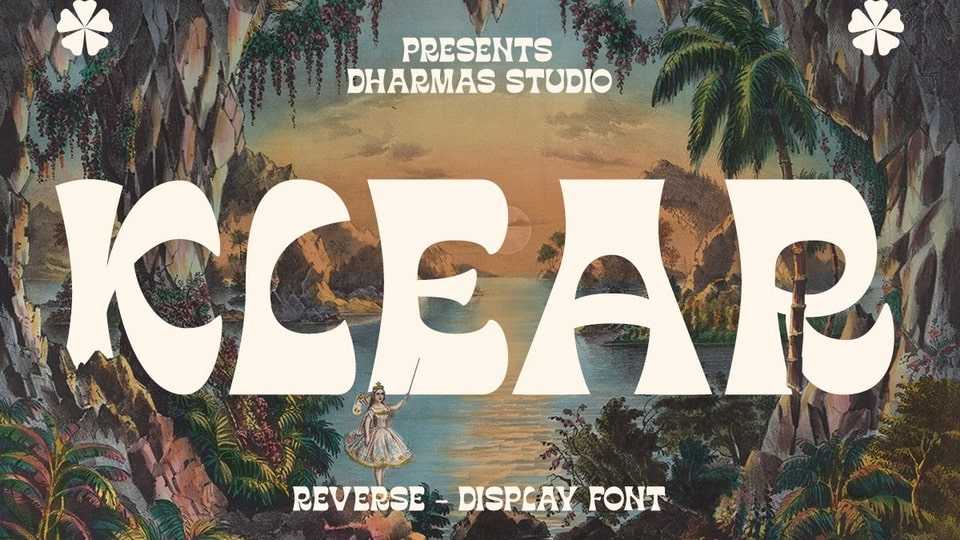
Download Klear font, a typeface that’s turning design conventions on its head! Inspired by the graceful flow of art nouveau, Klear is a perfect blend of quirkiness and elegance.